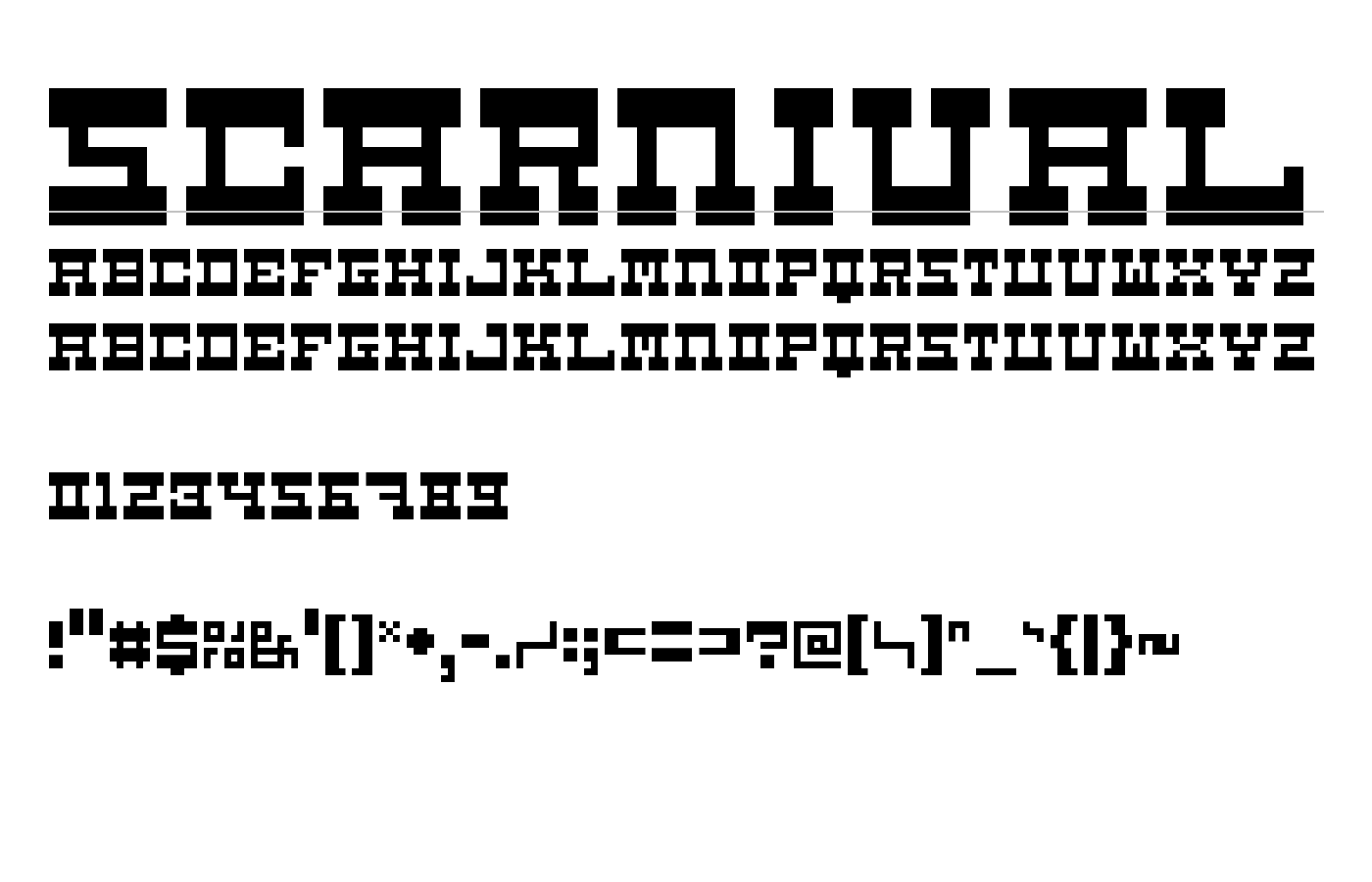
5Carnival is a bold, blocky slab serif font with a strong, geometric structure that commands attention. Its heavy weight and condensed width, combined with squared-off serifs and consistent stroke thickness, give it a vintage, industrial feel ideal for impactful headlines and signage. This font works best in designs seeking a retro, rugged personality, such as posters, logos, and packaging with a bold, confident vibe.
5Carnival Font
About 5Carnival Font
| Designer | Noah - 10 year old typomaniac |